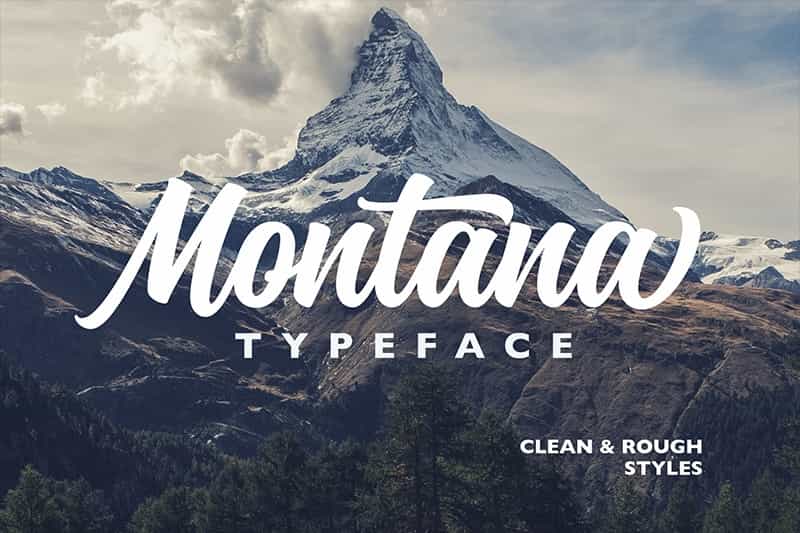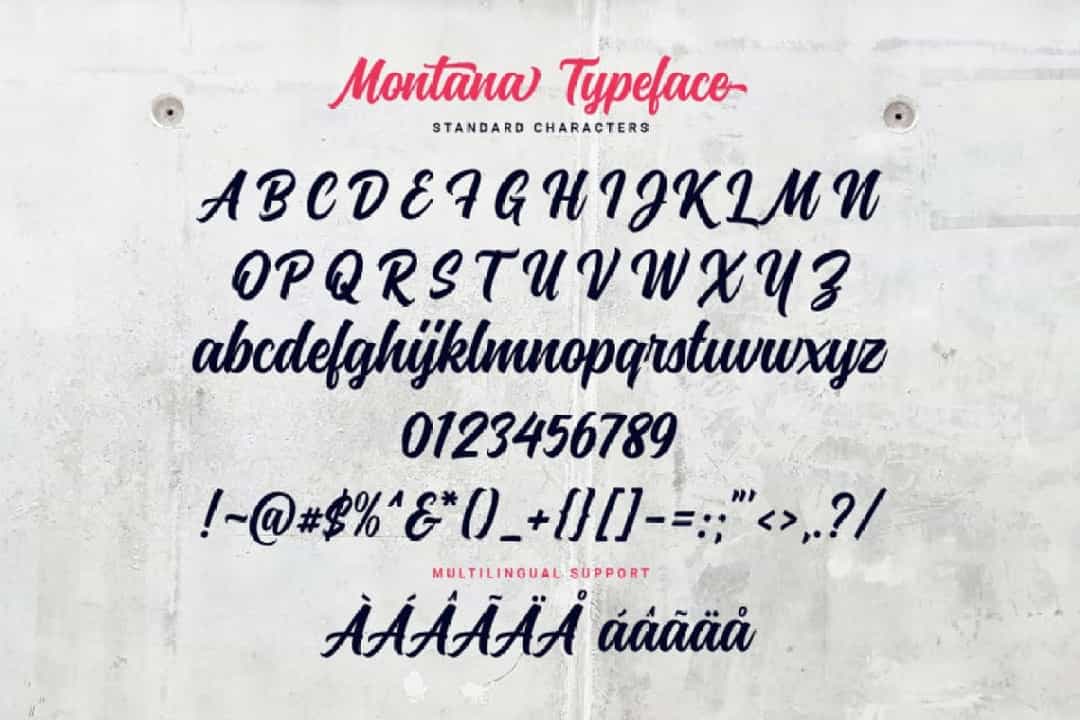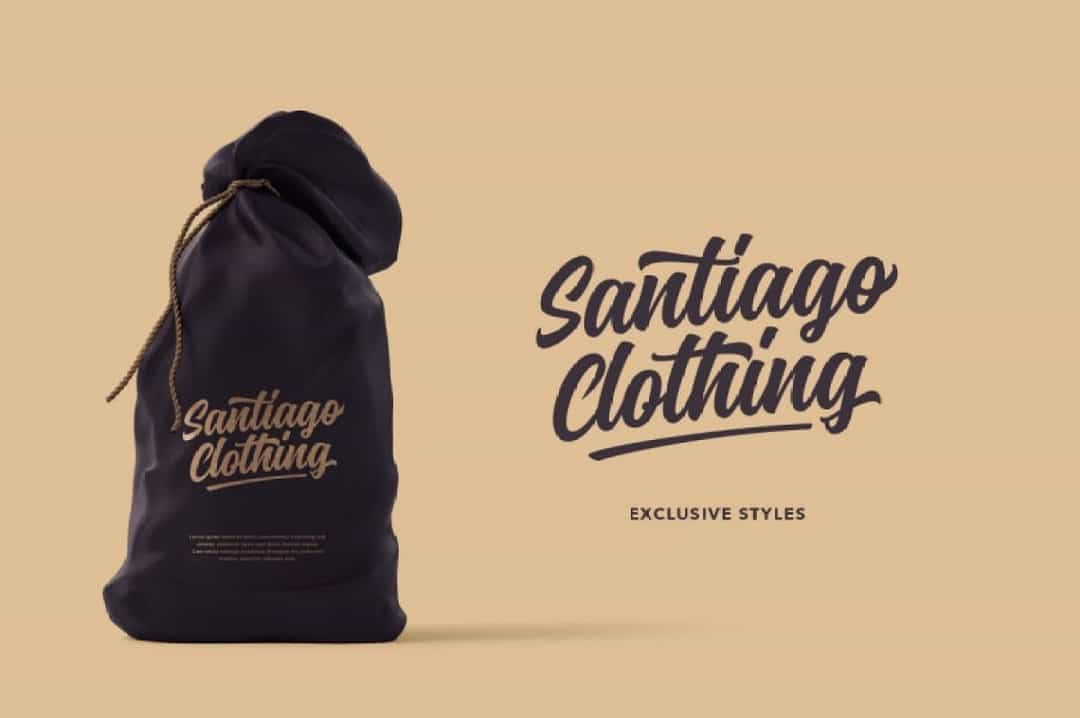
Montana font is an elegant handwritten, cursive and thick brush script font designed to add chic elements to headlines or logotypes. Montana exudes confidence and vibrancy – perfect for adding lots of nostalgia into any design! Montana can also be PUA encoded so that all its glyphs, swashes and characters are accessible with ease!